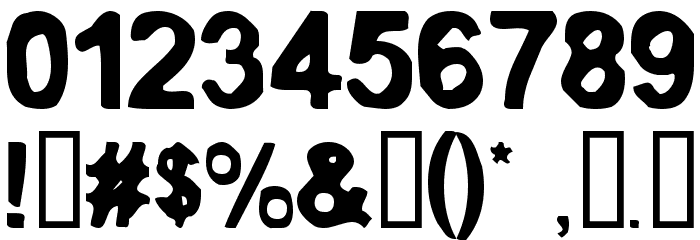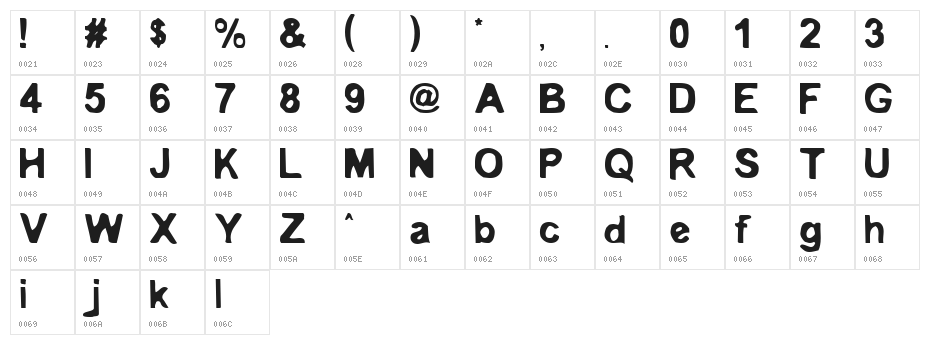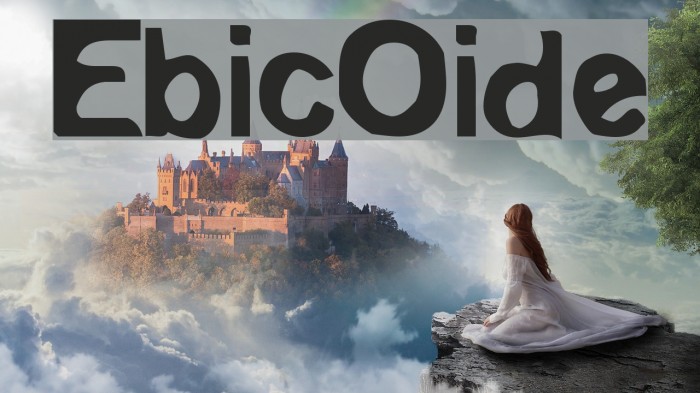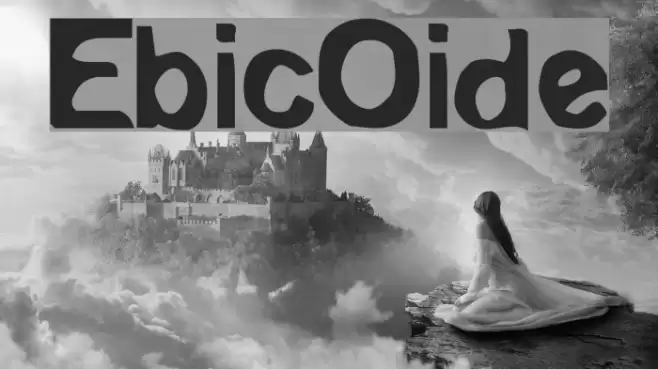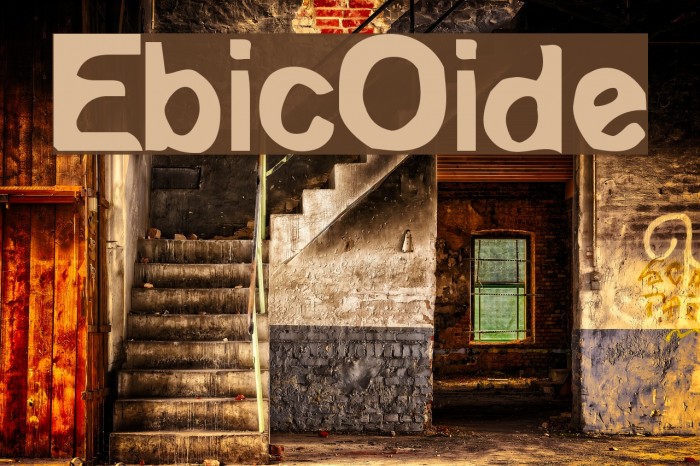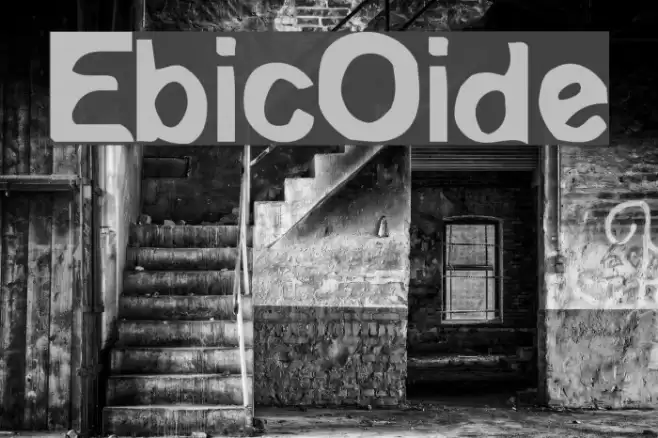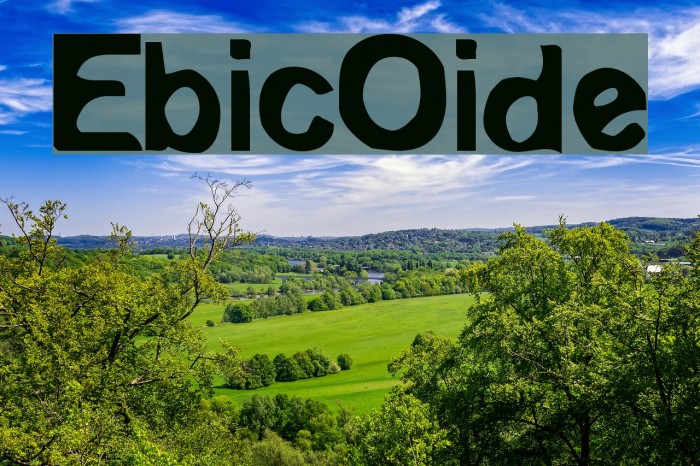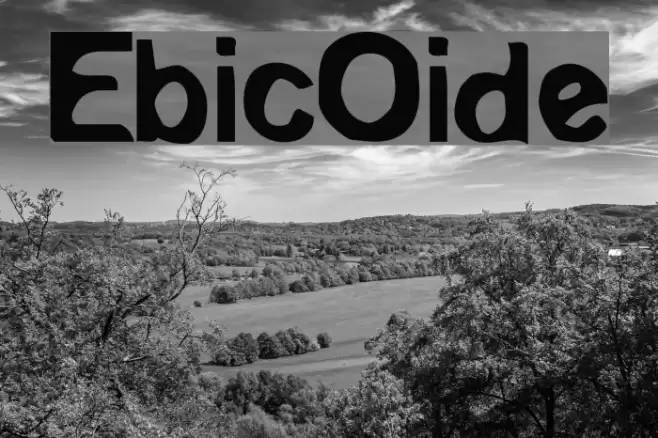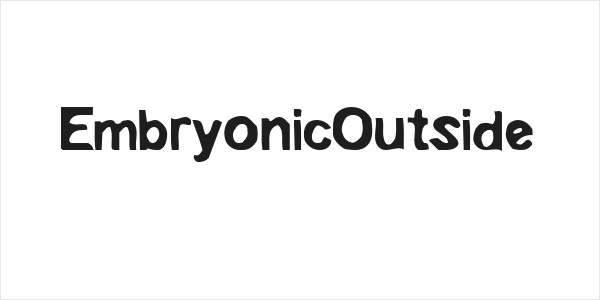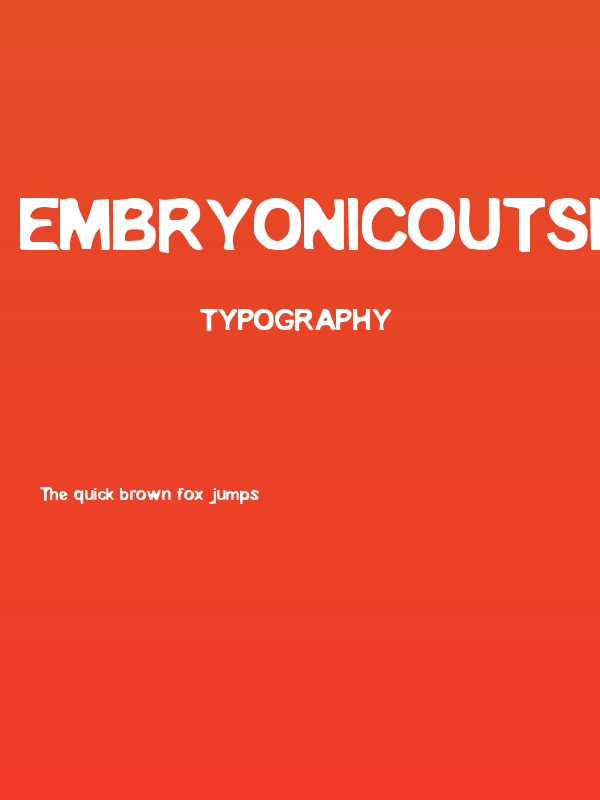
EmbryonicOutside Font
EmbryonicOutside Description
This font features a playful and bold design, characterized by its thick, rounded strokes and slightly irregular shapes. The uppercase and lowercase letters maintain a consistent weight, providing a cohesive look. The numbers and special characters follow the same style, ensuring uniformity across all elements. The font's whimsical nature makes it suitable for creative and informal applications, where a sense of fun and approachability is desired. Its boldness ensures readability, even at smaller sizes, while the rounded edges add a friendly touch.
| Proposed Projects | Ideal for children's books, playful branding, posters, and casual invitations. |